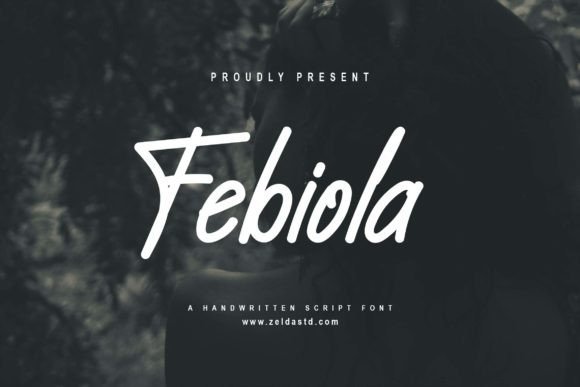
The Art of Authentic Expression: Introducing Febiola Font
Have you ever been inspired by the imperfect, handwritten notes of a loved one, or the charming signage of a vintage shop? Those moments of authentic expression can spark a creative journey, reminding us that sometimes it’s the imperfections that make something truly special. As designers, we’re always on the lookout for ways to capture that same essence in our work.
Enter Febiola Font, a stunning new addition to our collection that’s perfect for bringing a touch of authenticity to your designs. This beautifully crafted handwritten display font is designed to add a unique, human touch to posters, logos, stickers, and more. Whether you’re creating a eye-catching poster or designing a custom invitation, Febiola Font is sure to add a touch of personality to your work.
- Unique Characteristics: Febiola Font features a unique blend of modern and classic design elements, including elegant lines, subtle flourishes, and a sophisticated feel.
Febiola Font Review
As a designer, I was excited to dive into the Febiola font and see what it has to offer. Here’s my honest review:
- Unique Character: Febiola has a distinctive, elegant feel that sets it apart from other fonts.
- Good Legibility: The font is easy to read, even at smaller sizes, making it suitable for body text.
- Creative Applications: Febiola’s stylish look makes it perfect for creative projects like invitations, posters, and advertisements.
- Limited Font Weight Options: Febiola only comes in a few font weights, which may limit its versatility.
- Lack of Italic Styles: Unfortunately, the font doesn’t offer italic styles, which could be a drawback for certain designs.
- Not Suitable for Technical Text: Febiola’s flowing lines may make it difficult to read in technical or complex text.
Overall, I think Febiola is a beautiful font that excels in creative and design-driven applications. While it has some limitations, its unique character and good legibility make it a solid choice for designers looking for a stylish font.
Febiola font pairs well with minimalist designs, making it perfect for social media graphics and presentations.
Febiola font works well for creating elegant and sophisticated designs, making it perfect for invitations and brochures.
Febiola font is ideal for creating professional-looking presentations and documents, making it perfect for business proposals and reports.
Febiola font is suitable for a variety of applications, including:
- Social media graphics
- Presentations
- Invitations
- Brochures
- Business proposals
- Reports
Tips for Getting the Most Out of Febiola Font
To get the most out of Febiola font, try the following:
- Pair it with a simple background to let the font shine.
- Use it in combination
Alternatives to Febiola Font
Great Vibes Font is a modern, elegant, and highly legible script font. It is suitable for various design projects, including invitations, wedding cards, and advertising materials. Great Vibes Font has a more fluid and dynamic feel compared to Febiola Font, which makes it ideal for creative and artistic designs.
Alex Brush Font is a handwritten script font that exudes a sense of sophistication and elegance. It is perfect for designs that require a touch of sophistication, such as business cards, letterheads, and luxury branding materials. While Alex Brush Font shares some similarities with Febiola Font in terms of its elegant feel, it has a more refined and polished appearance.
Carolyna Pro Font is a modern and stylish script font that is suitable for a wide range of design projects. It has a more minimalist and clean appearance compared to Febiola Font, making it ideal for designs that require a touch of simplicity and elegance. Carolyna Pro Font is perfect for modern branding materials, advertising campaigns, and editorial designs.